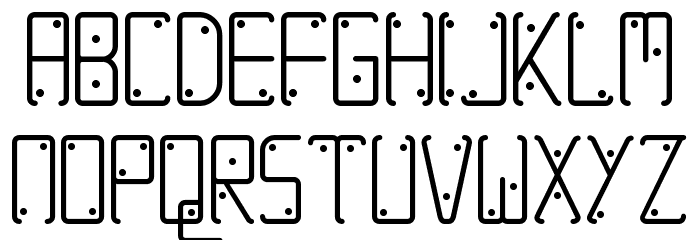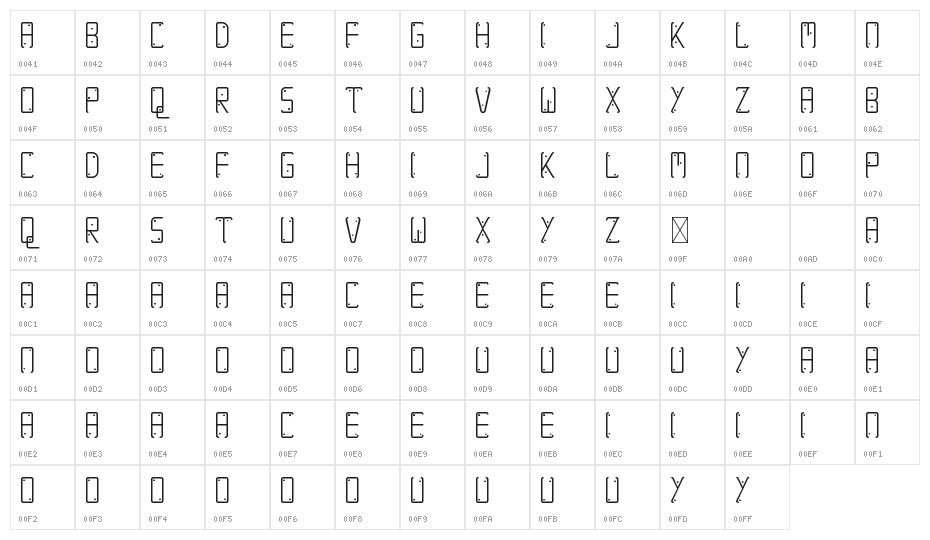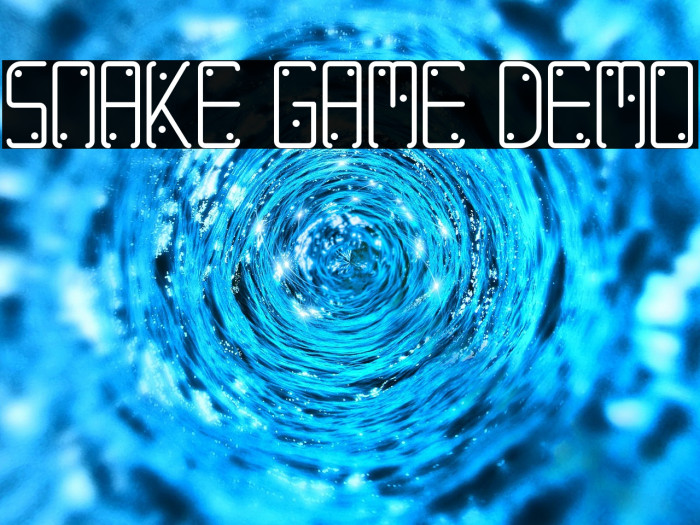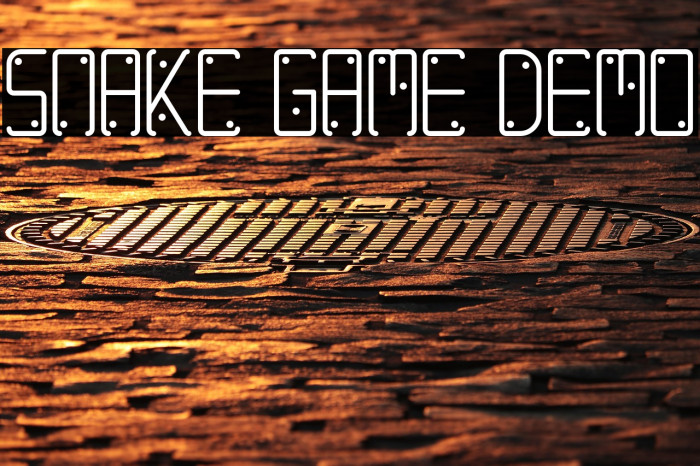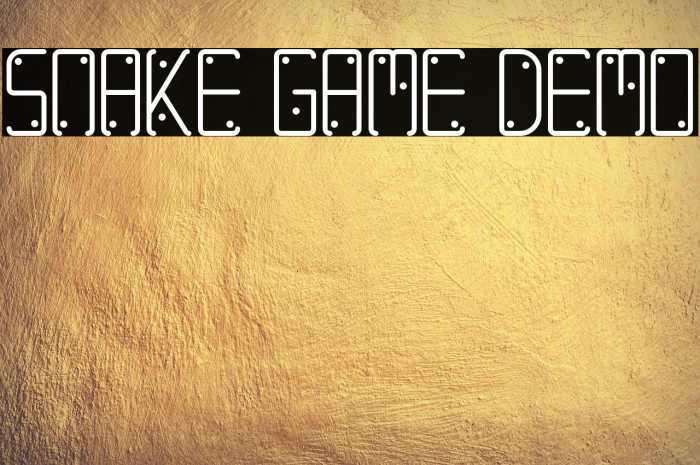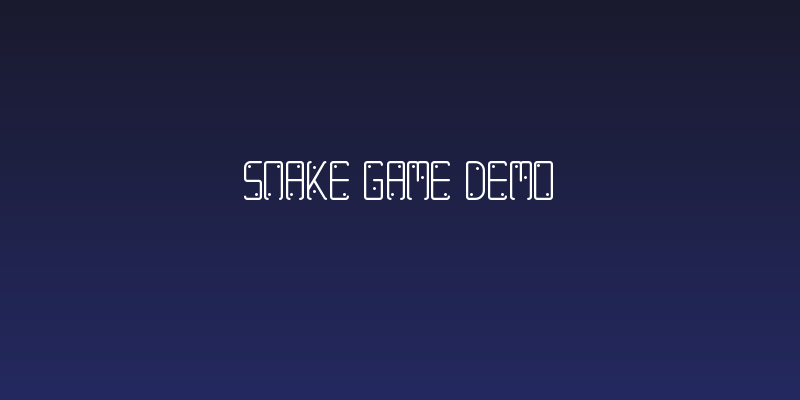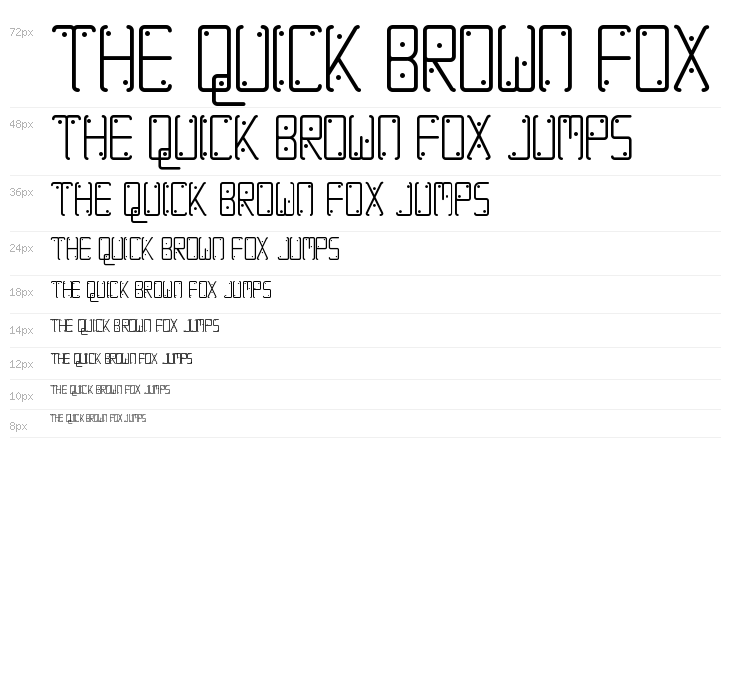
Snake Game Demo Font
Snake Game Demo Description
This font features a unique and playful design, reminiscent of retro digital displays or arcade games. Each character is composed of bold, rounded lines with small circular accents at the corners, giving it a distinct, tech-inspired appearance. The geometric structure of the letters provides a modern and futuristic feel, while the rounded edges soften the overall look, making it approachable and fun. The consistent line thickness across all characters ensures a uniform appearance, enhancing readability. This font is ideal for projects that aim to capture a sense of nostalgia or a playful, tech-savvy vibe.
| Overall Style | Modern, Retro |
| Proposed Projects | Ideal for video game graphics, tech-themed posters, retro digital displays, and playful branding. |